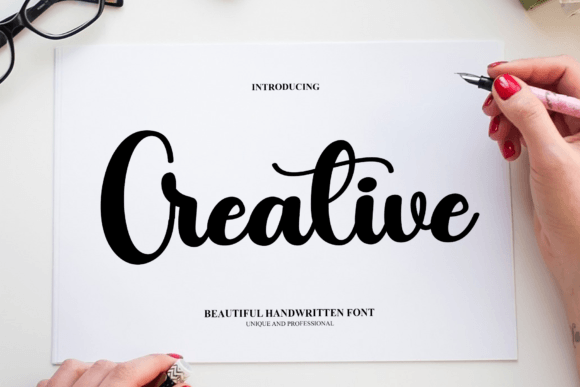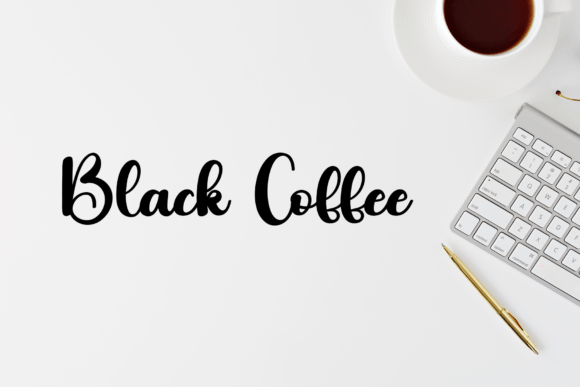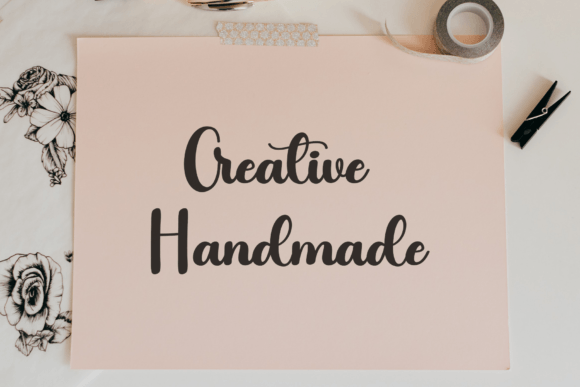
About Creative Font
Introducing “Creative,” an elegant and feminine typeface designed to bring sophistication and charm to a variety of headline applications. This versatile font is a perfect choice for a wide range of creative projects, including wedding stationery, invitations, florists’ branding, packaging, and social media posts. With its refined and graceful design, “Creative” adds a touch of elegance to your text.
The elegance and femininity of “Creative” make it well-suited for different design contexts. Whether you’re creating wedding invitations, establishing a floral brand identity, or enhancing your social media presence, this font is crafted to bring a sense of refinement to your headlines.
Imagine “Creative” gracing your wedding stationery, where its elegant typeface creates a timeless and romantic atmosphere. Picture it on florist branding, adding sophistication to your logo and packaging. Envision it becoming the signature font for your social media posts, creating a cohesive and feminine visual identity.
“Creative” is not just a font; it’s a design element that brings elegance and femininity to your projects. Its versatility allows it to shine in various applications, making it a valuable addition to your font collection.
Add “Creative” to your creative toolkit and experience how it effortlessly elevates your headlines. Let it be the elegant and feminine typeface that adds a touch of sophistication to your wedding stationery, invitations, branding, and more!